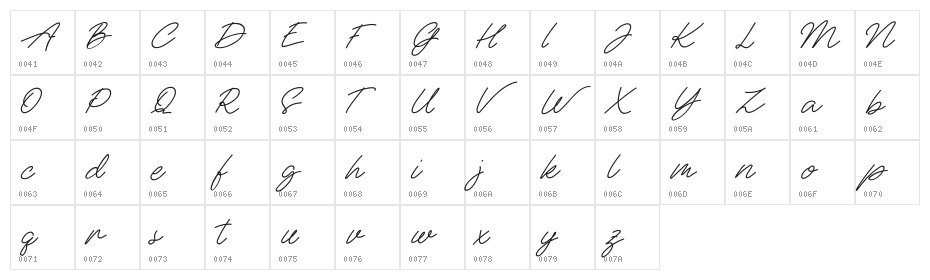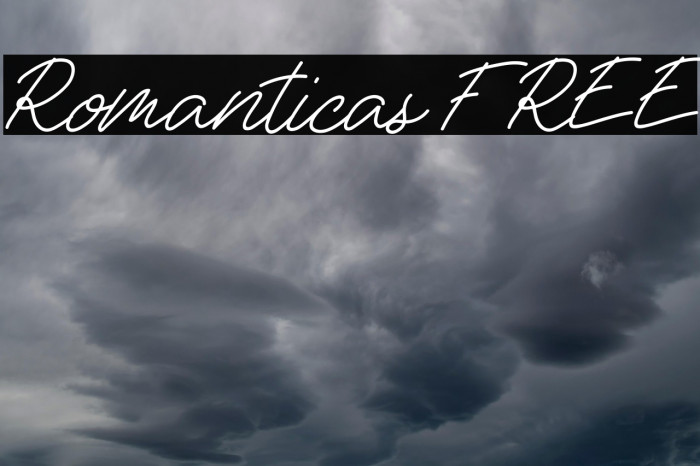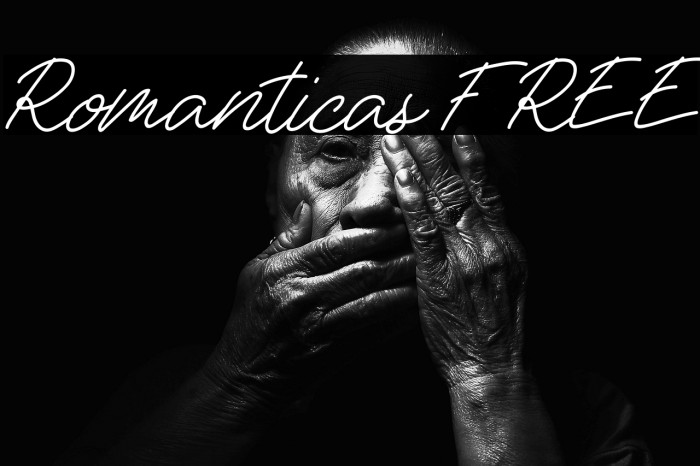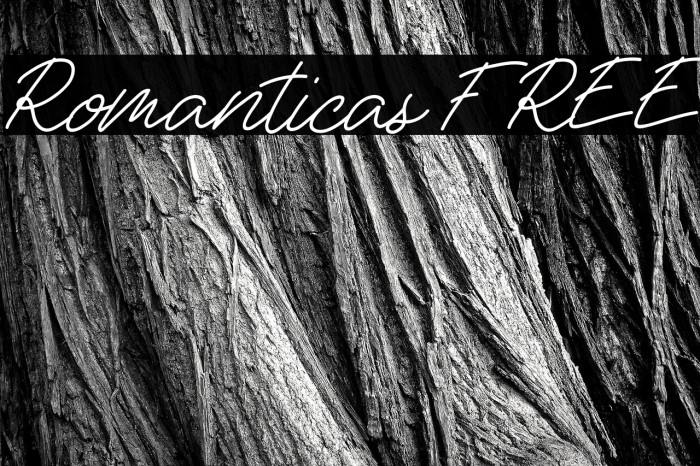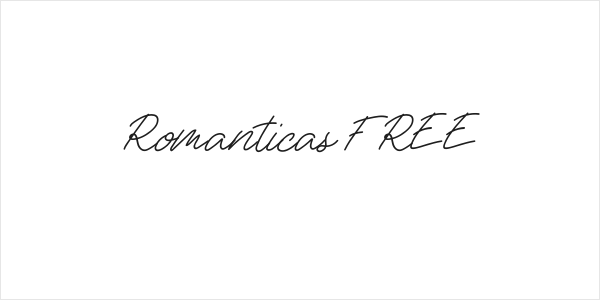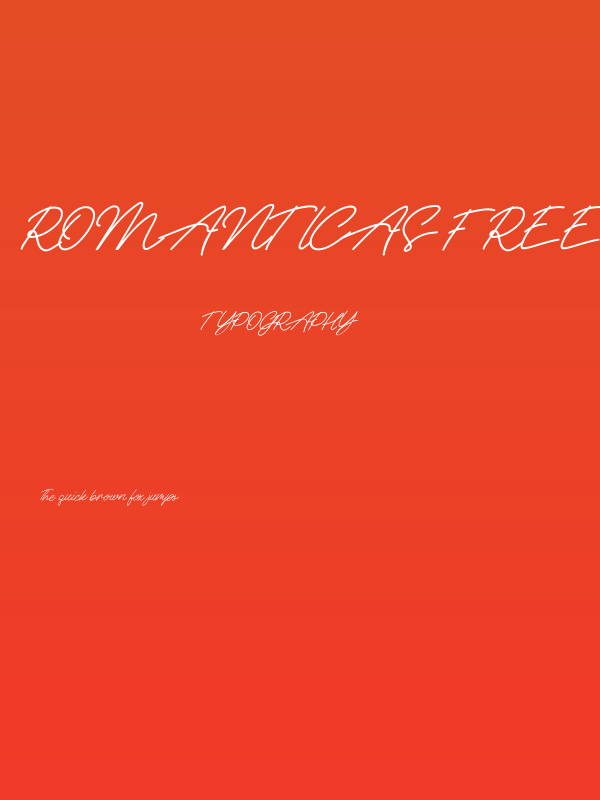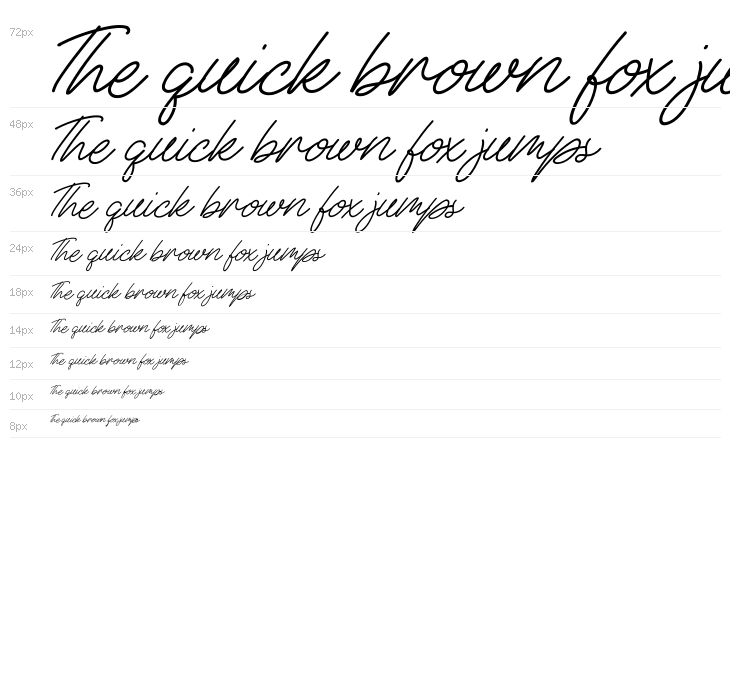
Romanticas FREE Font
Romanticas FREE Description
This elegant script font features a flowing, cursive style that mimics natural handwriting. The letters are interconnected, creating a seamless and fluid appearance. The strokes are smooth and consistent, with a slight slant that adds a touch of sophistication. The uppercase letters are bold and prominent, while the lowercase letters maintain a graceful and delicate form. This font exudes a romantic and personal feel, making it ideal for projects that require a touch of elegance and warmth.
Overall StyleRomantic
Use CaseLogos, Invitations, Personal branding
Proposed ProjectsIdeal for wedding invitations, greeting cards, personal branding, and romantic-themed designs.